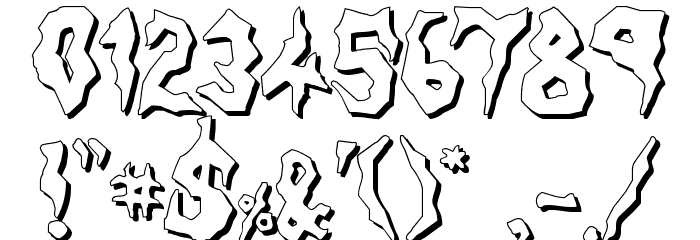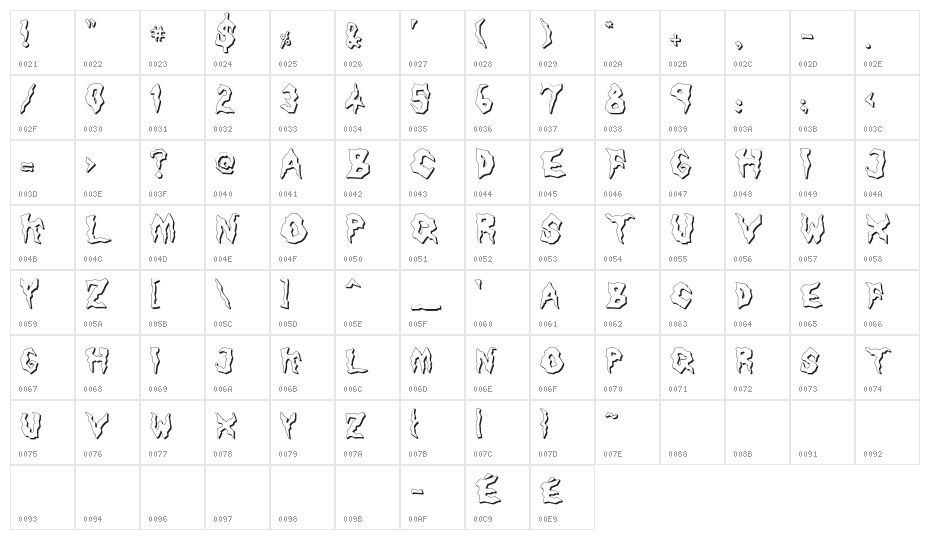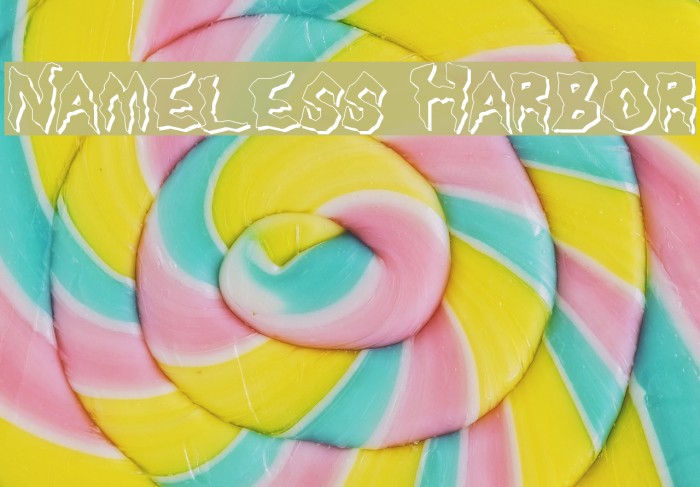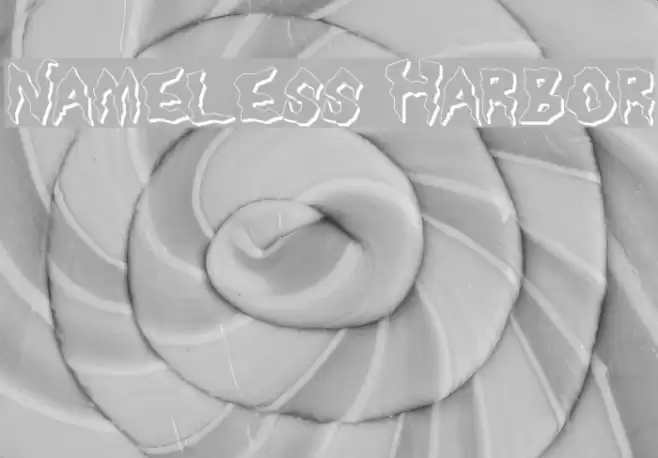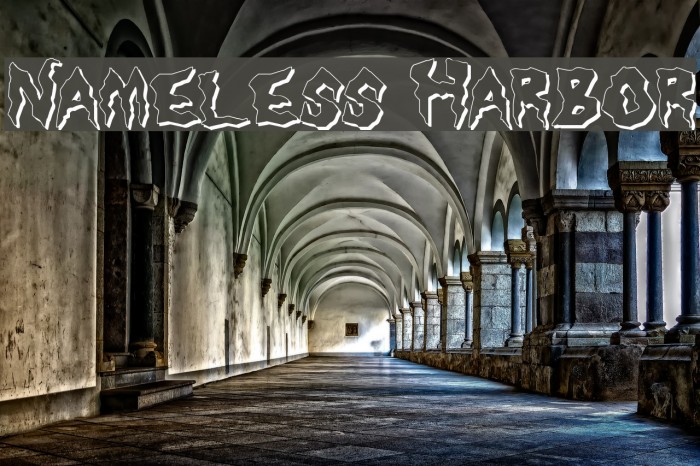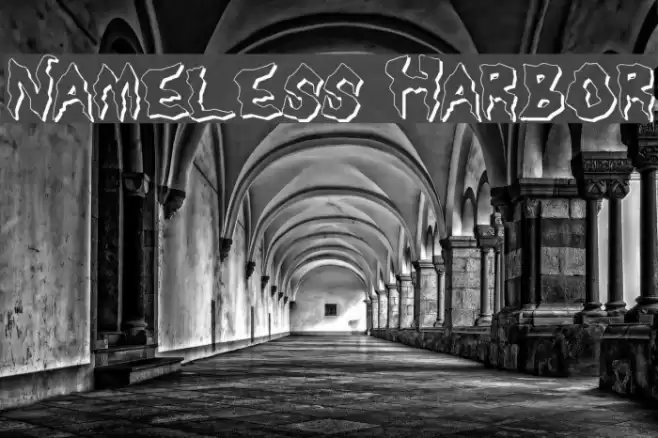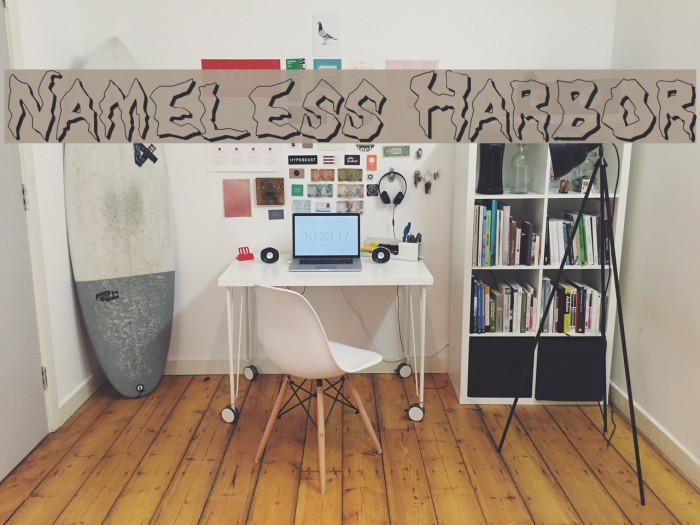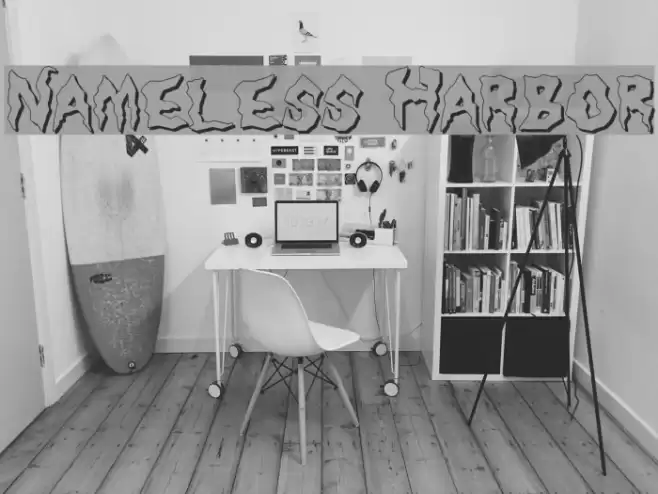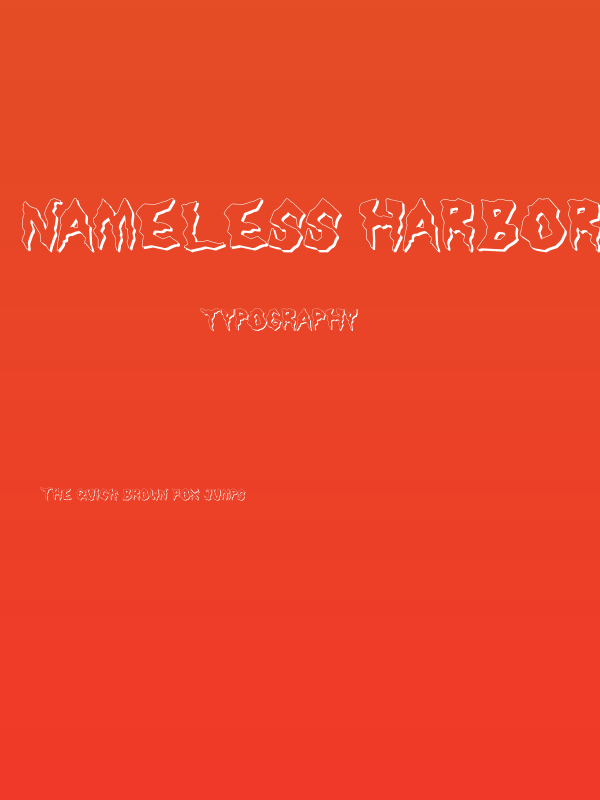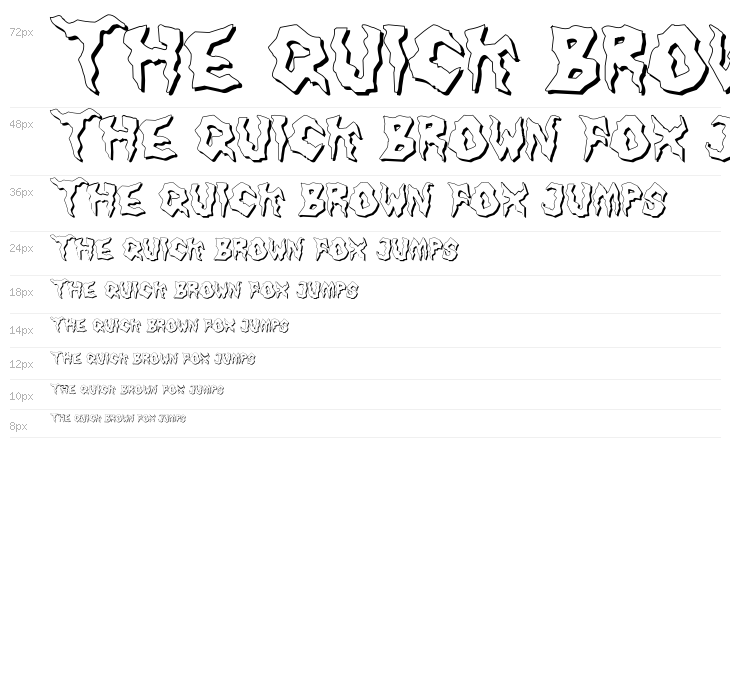
Nameless Harbor Font
Nameless Harbor Description
This font features a bold and jagged design, reminiscent of rugged, hand-carved lettering. Each character is outlined with a thick black stroke, giving it a three-dimensional appearance. The irregular edges and sharp angles contribute to a dynamic and edgy aesthetic, making it stand out with a sense of movement and energy. The uppercase and lowercase letters maintain a consistent style, while the numbers and special characters complement the overall theme. This font is ideal for projects that require a bold statement or a touch of rebellious flair.
Proposed ProjectsIdeal for posters, album covers, video game titles, and branding that requires a bold, edgy look.